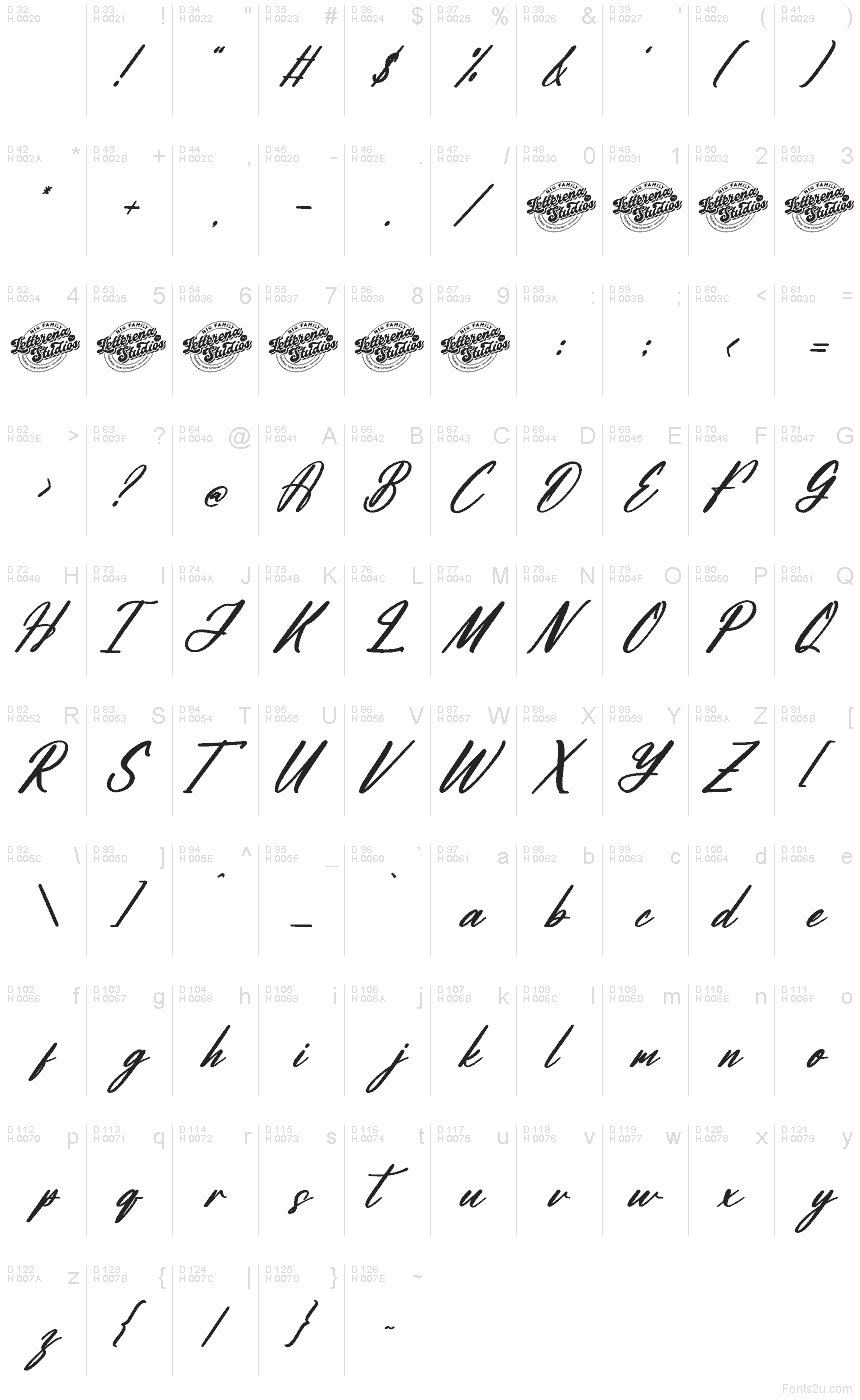
Albathros Yashline DEMO VERSION Italic
Albathros Yashline Italic font by Letterena Studios is a free handwritten typeface with the feel of fast, confident ink on smooth paper. Its flowing slant, narrow loops, and slightly compressed letters create a stylish, editorial script that looks like a signature you’d actually want on a product. The strokes stay consistent and clean, so even when the words get longer, they remain legible and graceful rather than messy.
Using Albathros Yashline Italic, you can give wedding invitations, logos, beauty packaging, social media quotes, thank-you cards, and boutique signage a polished, personal touch. This free font shines when used large as a hero script, with a simple sans serif underneath to handle the small print. Keep the tracking a bit loose and let the letters breathe, and the whole design takes on an easy, luxe handwriting feel.